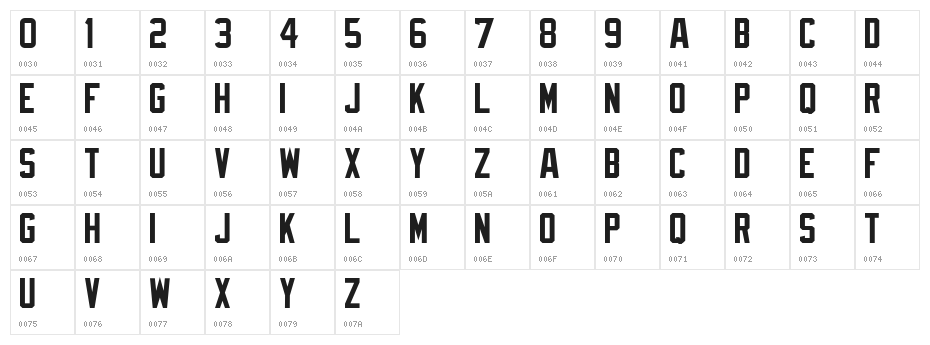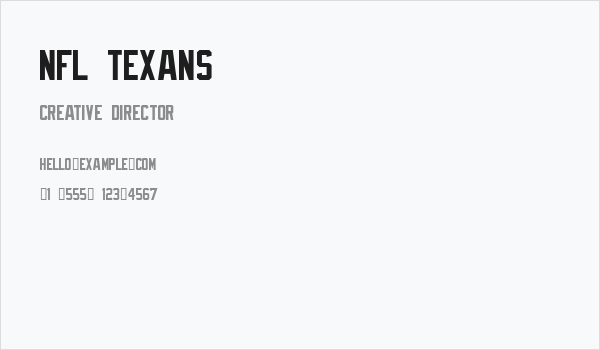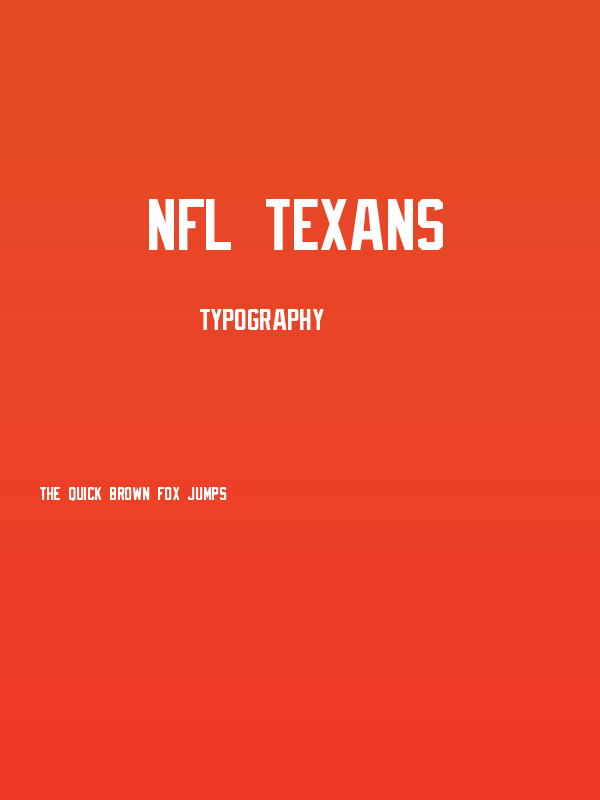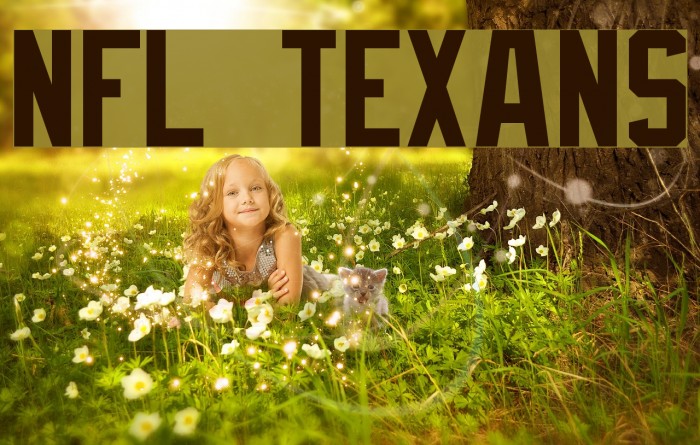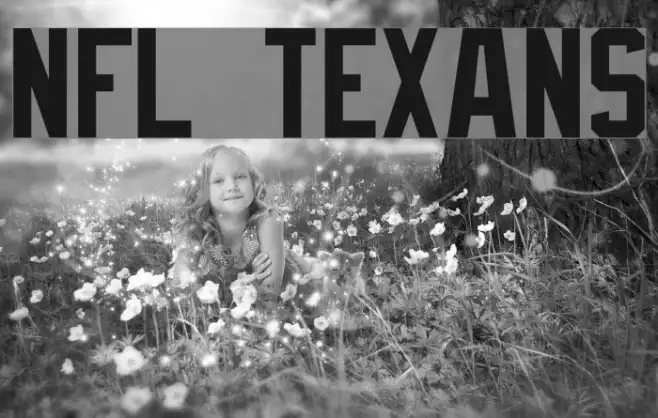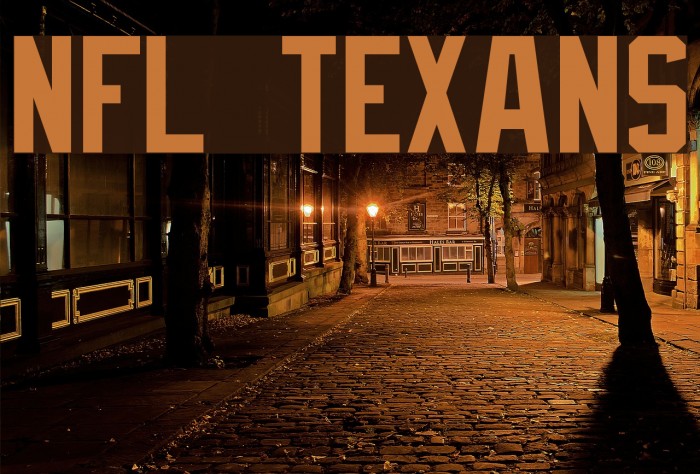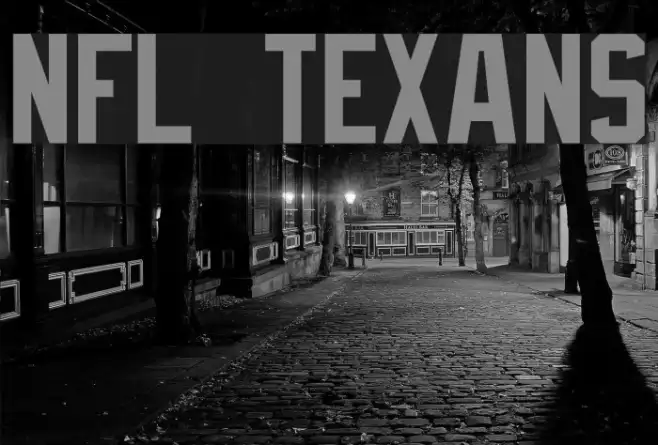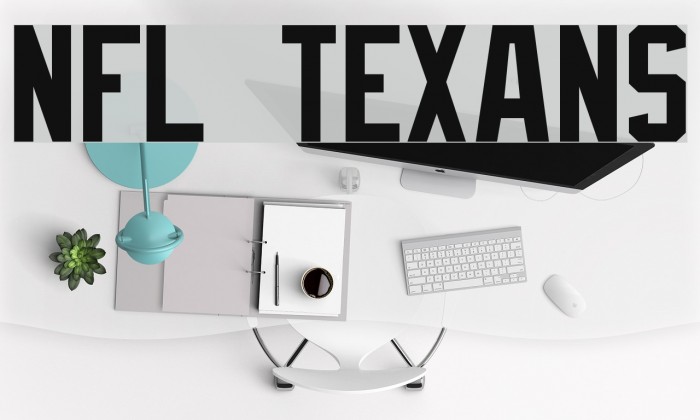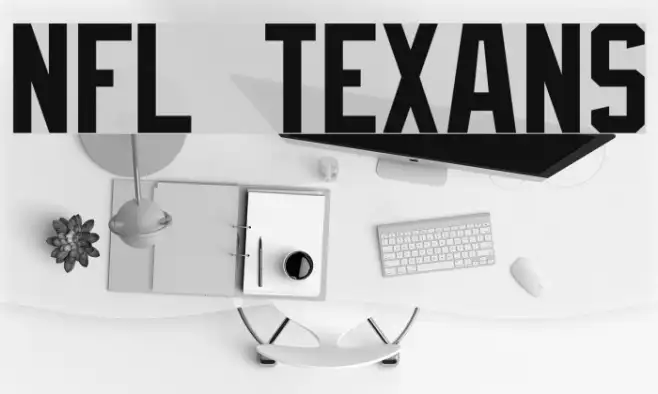
NFL Texans Font
NFL Texans Description
This font features a bold and robust design, characterized by its strong geometric shapes and angular edges. The uppercase letters are uniform in height, creating a cohesive and structured appearance. The numbers follow the same bold style, ensuring consistency across all characters. The font's design is reminiscent of sports team branding, with a focus on readability and impact. Its blocky and solid form makes it ideal for conveying strength and determination. The absence of curves and the emphasis on straight lines give it a modern and assertive look.
| Use Case | Logos, Headlines |
| Proposed Projects | Ideal for sports branding, team logos, merchandise, and promotional materials. |